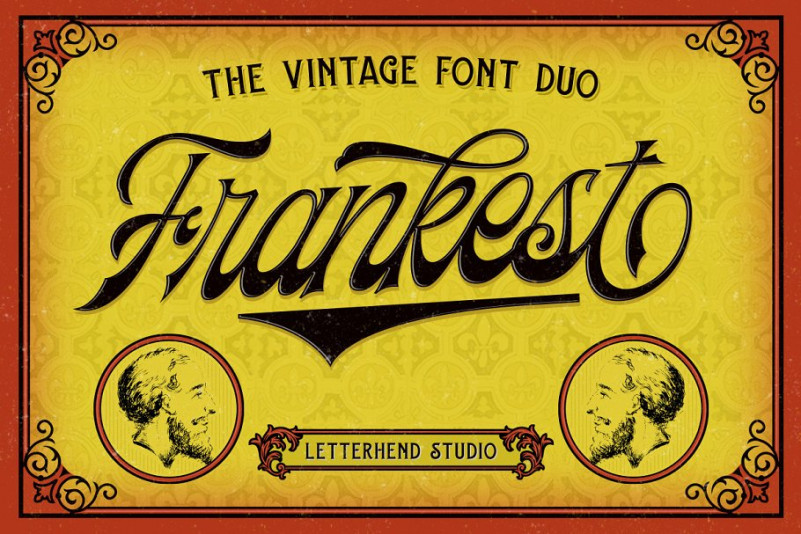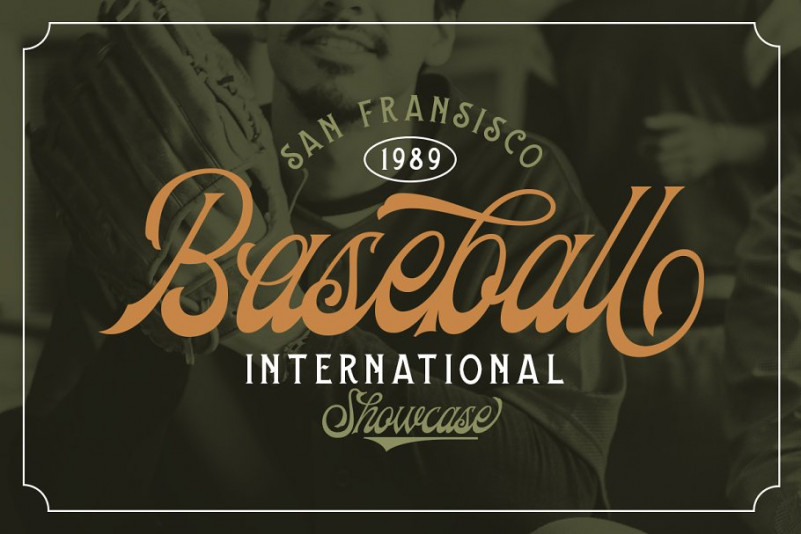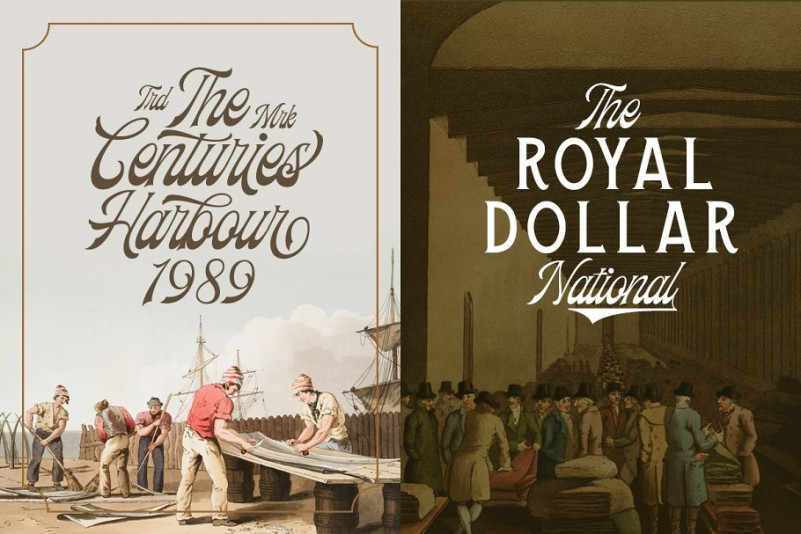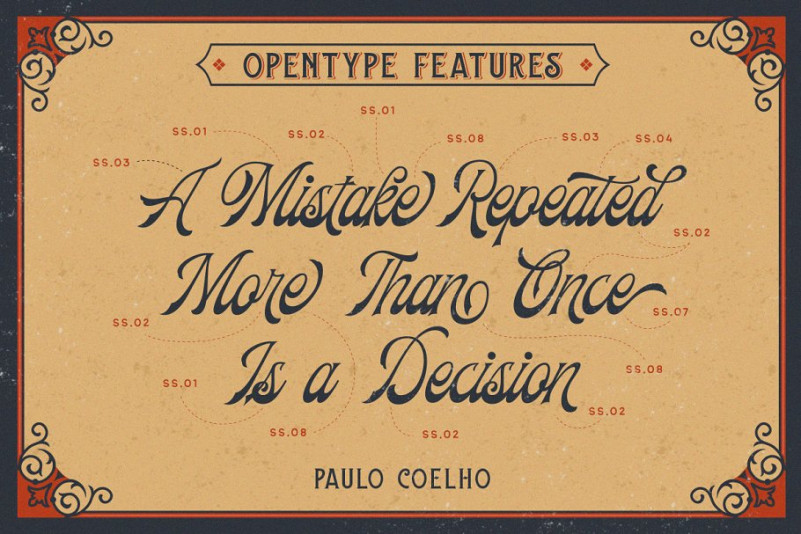
Frankest – The Vintage Font
Introducing, our latest vintage font duo called Frankest. Perfect for logotype, headline, apparel, poster with vintage feels.